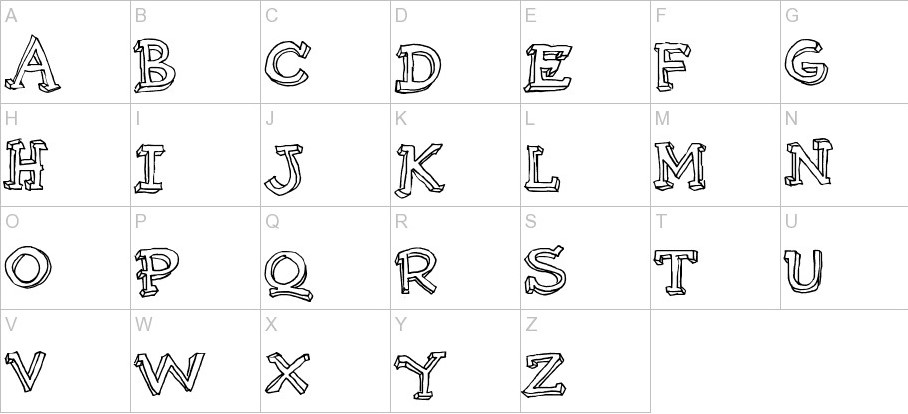
Pijamas Font
But in a while, after looking for the general public’s reaction the sitcom company has determined to unfasten upon global. It is one of the most stylish font.
Style Of Pijamas Font Free